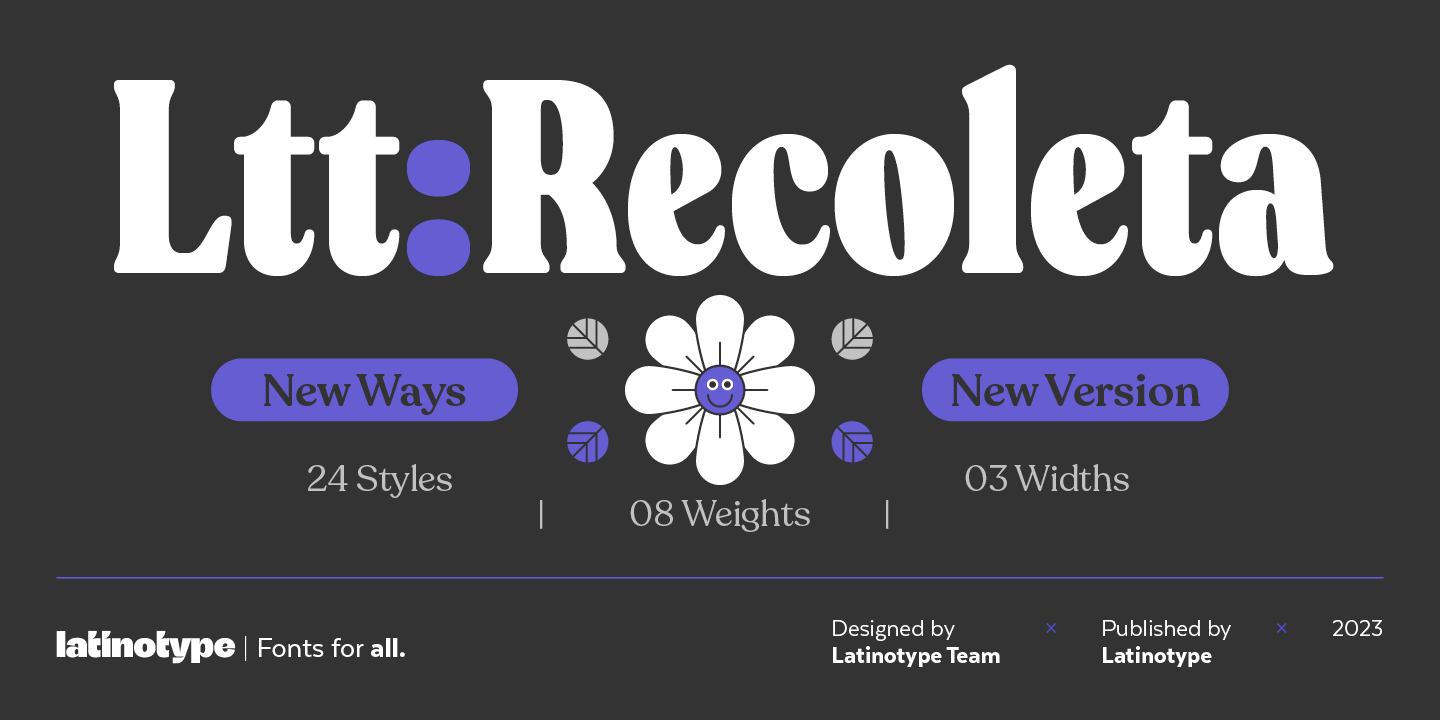
Ltt Recoleta Font Free Download is a unique and expressive serif typeface that combines vintage charm with modern functionality. Its strong personality, gentle curves, and bold serifs make it an excellent choice for branding, editorial design, posters, and social media graphics. Inspired by 1970s type styles, Ltt Recoleta offers a warm, nostalgic feel while maintaining contemporary usability.
The font is designed to perform well in both display and text sizes, offering versatility across various design needs. With multiple weights ranging from light to black, it allows designers to create dynamic typographic hierarchies and rich visual experiences. Ltt Recoleta Font Free Download is ideal for projects that need a balance between friendliness and sophistication.